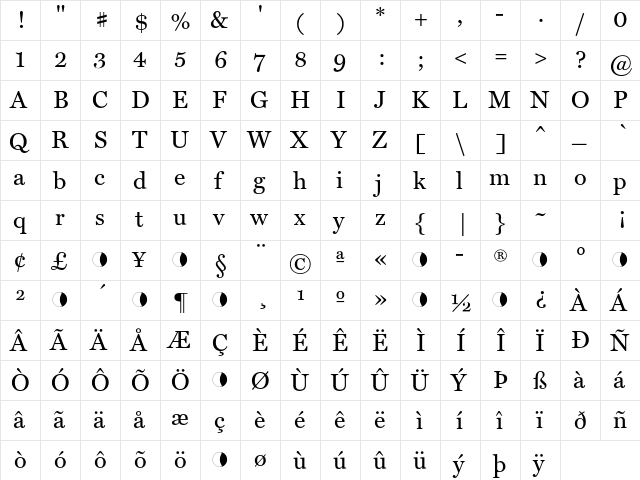
Home Regular
Design Context for Home Typeface
Home is a composed and adaptable typeface that performs quietly and consistently across a wide range of design contexts.